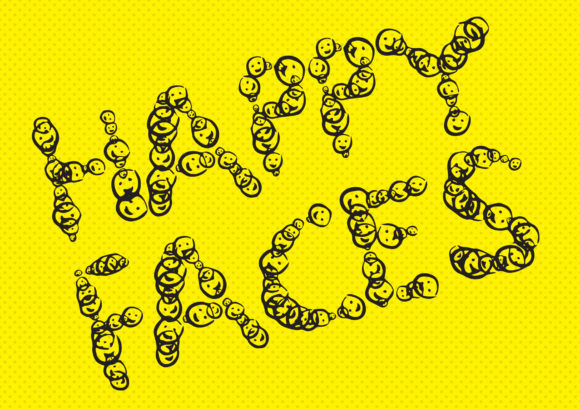
Dive into the world of Happy Faces Font, a whimsical display font that exudes joy and cheerfulness. Crafted by the talented artists at GraphicsBam Fonts, Happy Faces is an enchanting addition to our font collection. This font features a playful and charming style, with rounded edges and cheerful curves that instantly uplift any design. Each letter dances across the page, spreading happiness and positivity.
Unleash your creativity with Happy Faces Font, the perfect choice for adding a touch of delight to your craft signs. Its easy-to-read characters and cheerful vibe make it ideal for creating eye-catching signs that grab attention. Whether you're crafting signs for your home, business, or special event, Happy Faces Font is sure to add a smile to everyone's face.
With its playful personality, Happy Faces Font is the ideal choice for adding a touch of whimsy to your designs. Its unique character set, complete with quirky glyphs and charming alternates, allows you to create truly captivating designs that stand out from the crowd. Bring your imagination to life and let Happy Faces Font transform your words into works of art.